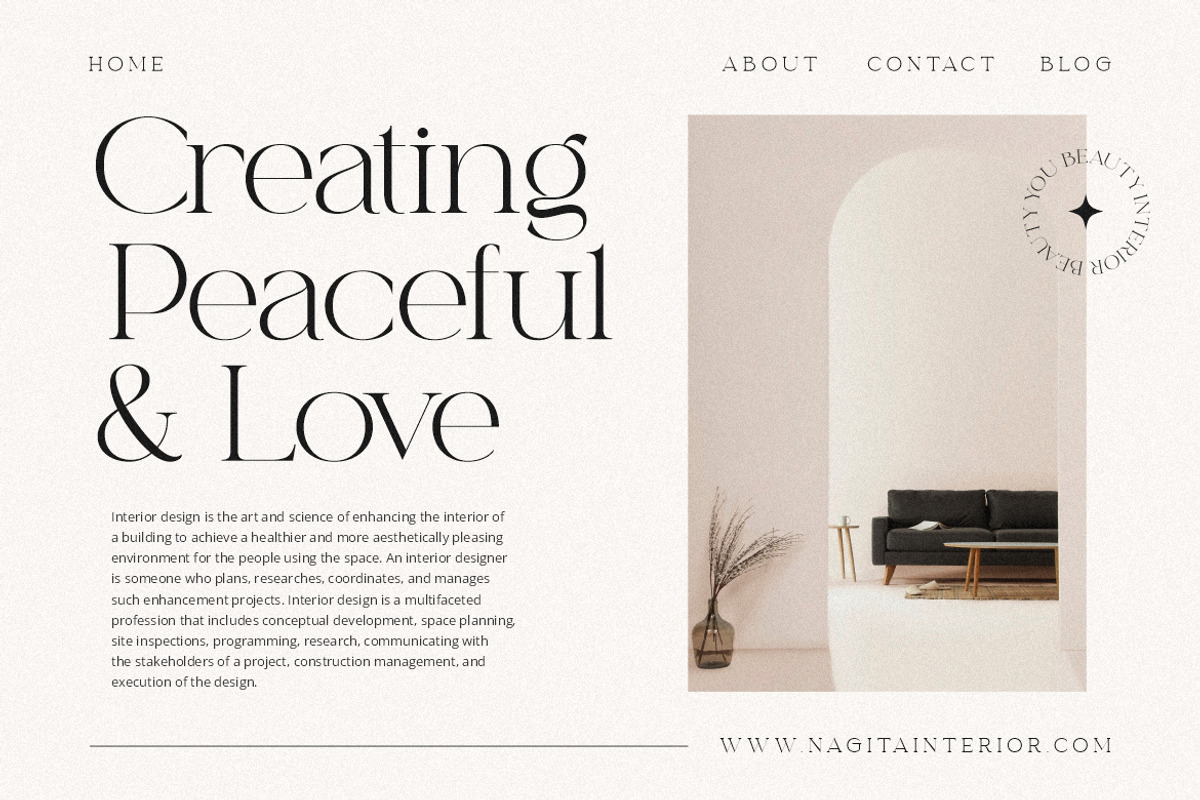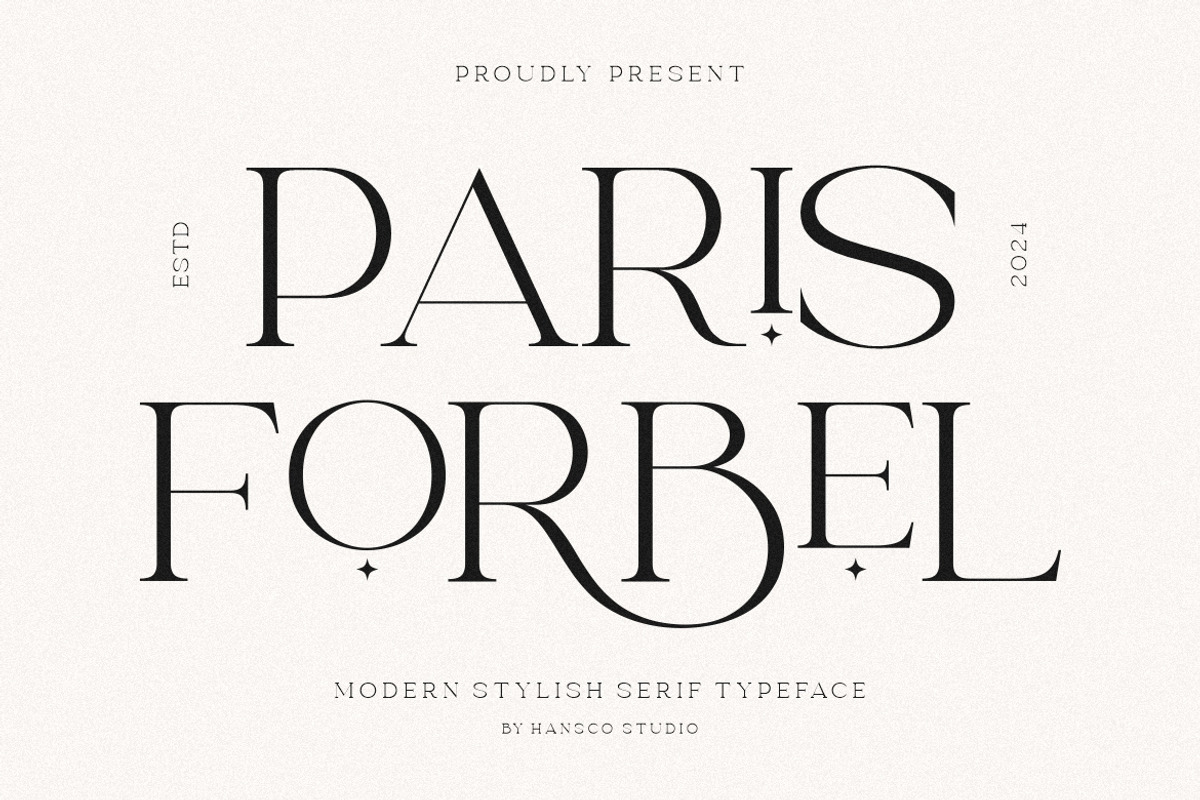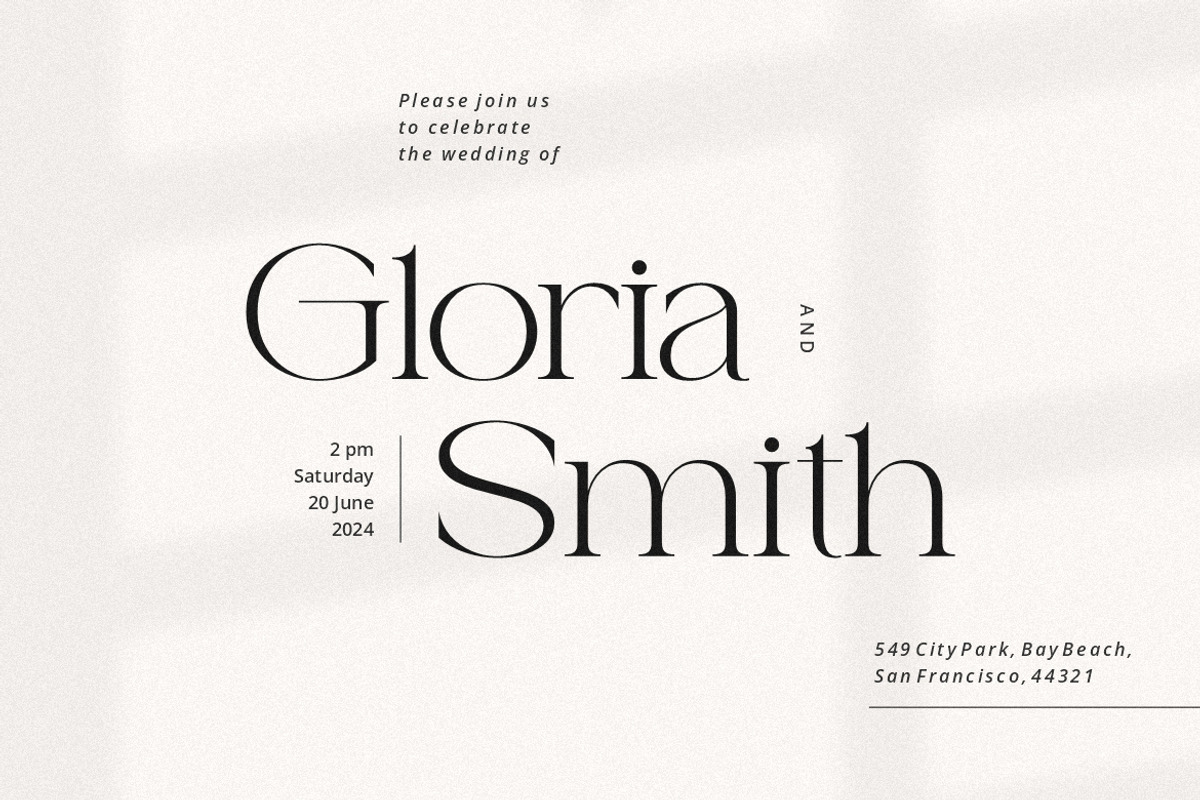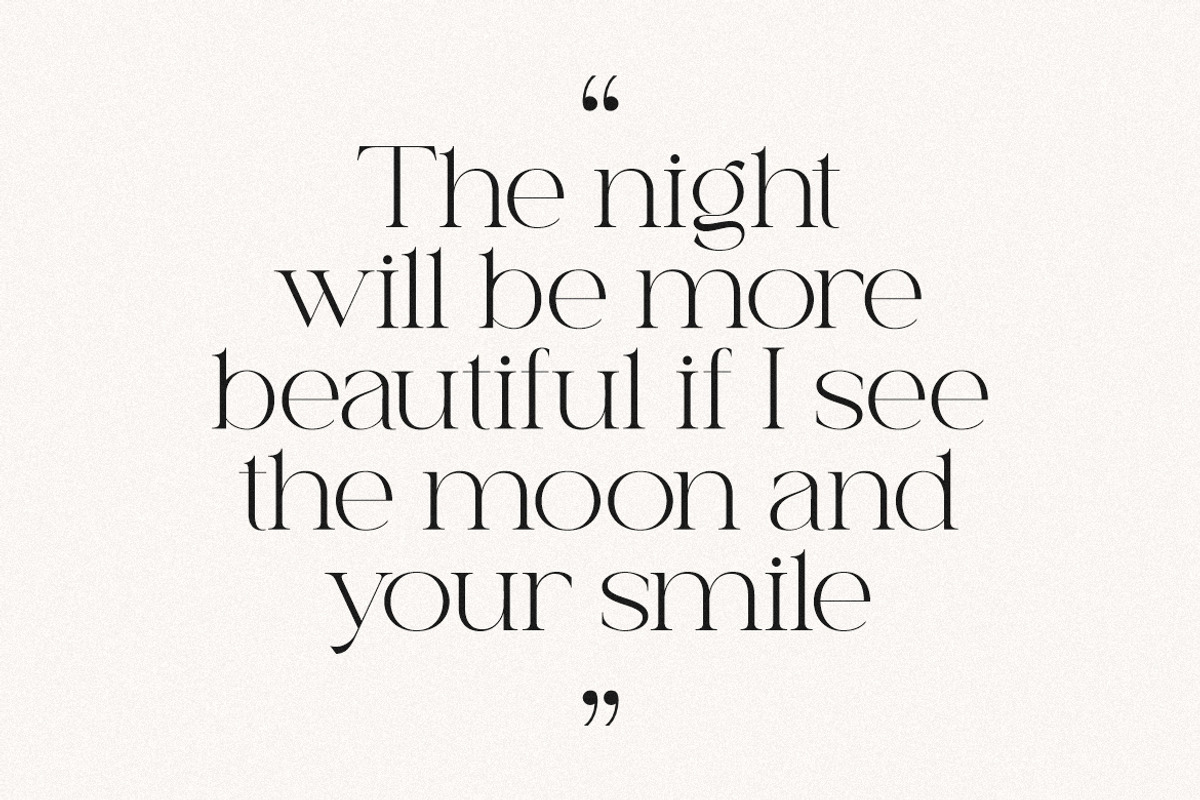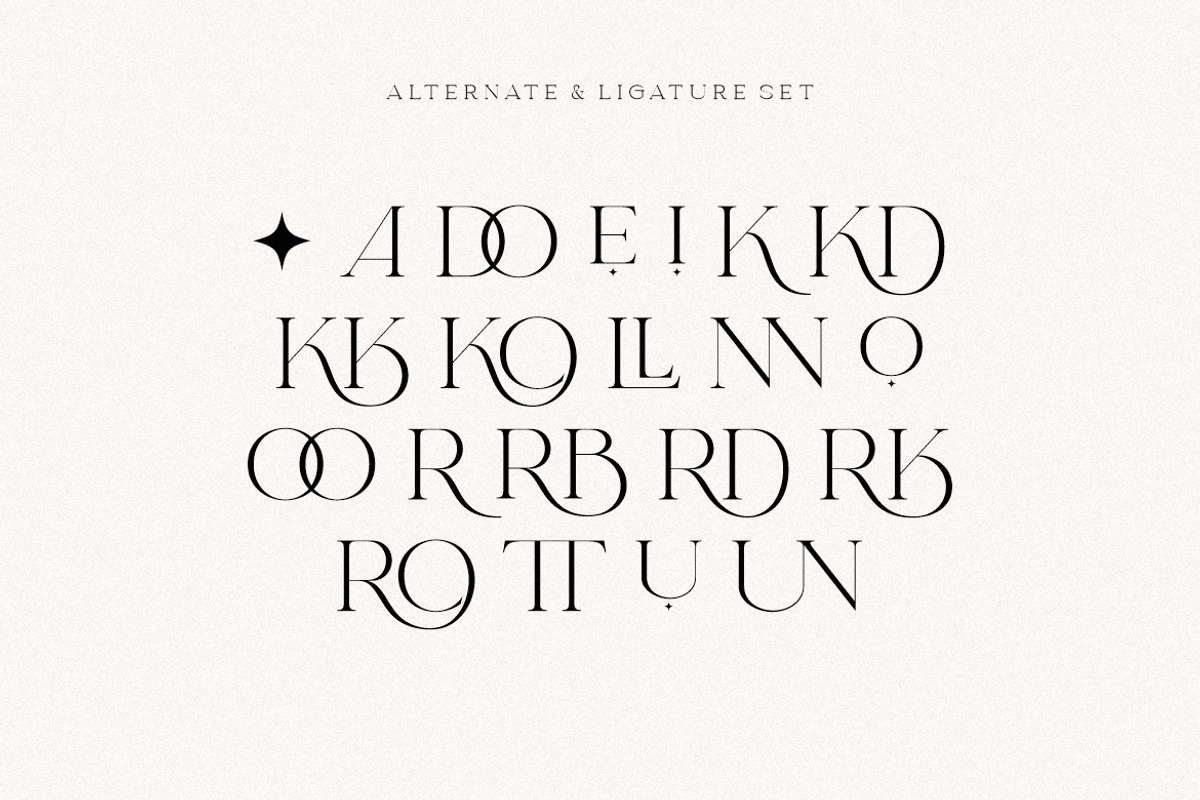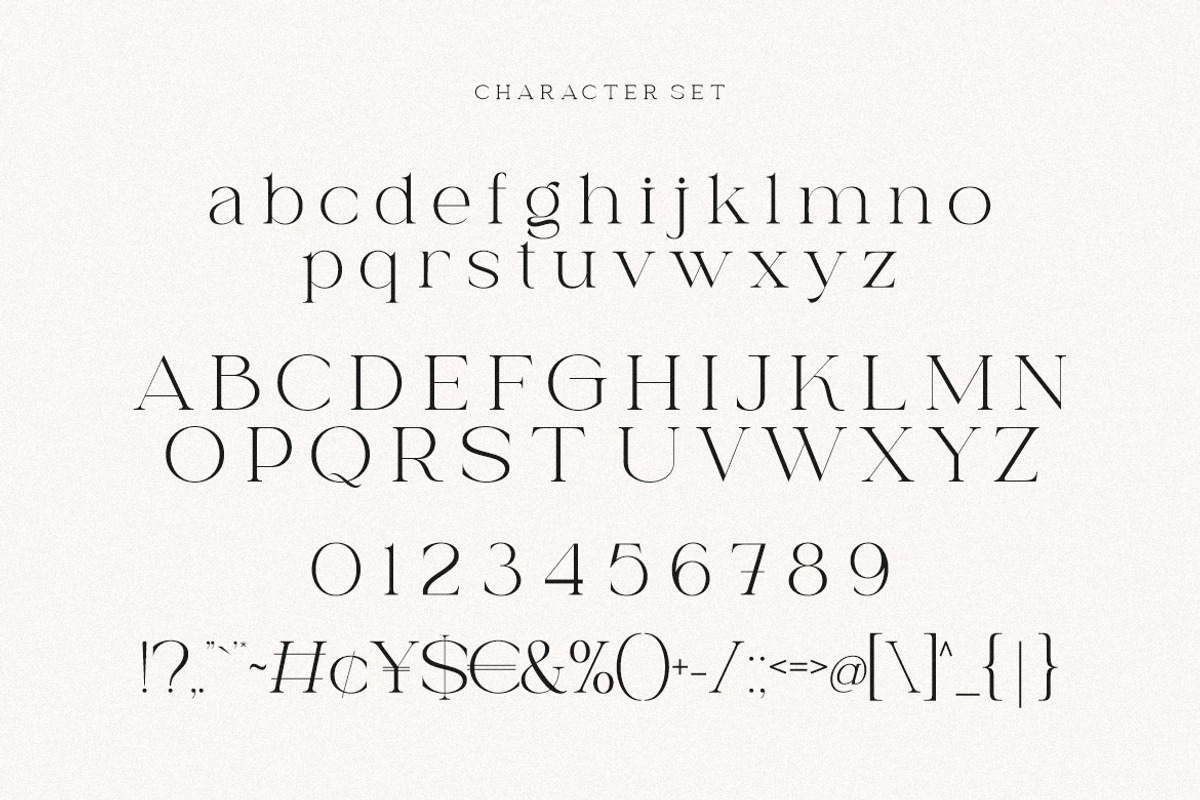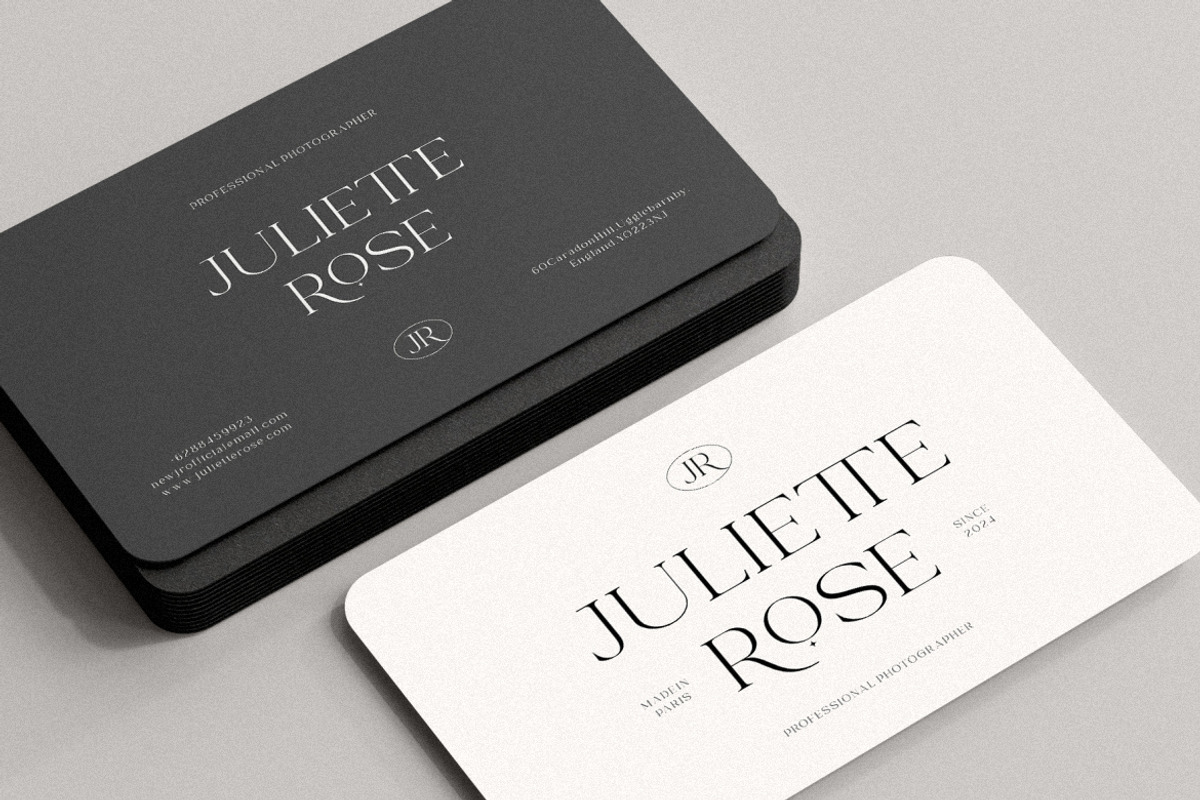
Paris Forbel - Modern Font
Paris Forbel Font is a elegant display serif font with modern look that is perfect for multipurpose projects. Inspired by the concept of romantic vibes and made it into a unique yet luxury style. This font is also looks fabulous and will fit well in any design and very recommended for logo, crafts, posters, books, branding, quotes, print templates, packaging, invitations, product labels, advertising, wedding project and more. This typeface comes in uppercase, lowercase, with punctuation, symbols, numerals, ligature and stylistic alternates. This font is PUA encoded which means you can access all of the charming glyphs and swashes with Character Map on Windows or Font Book on Mac.
- Alternate & Ligature character